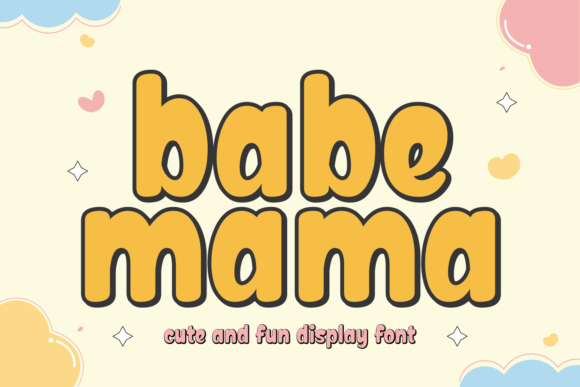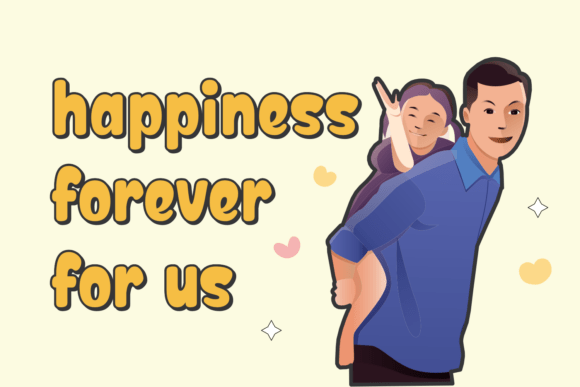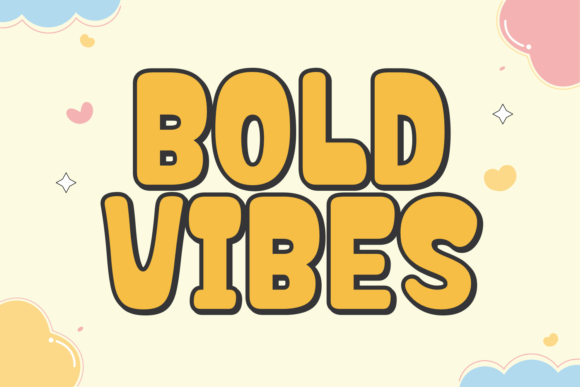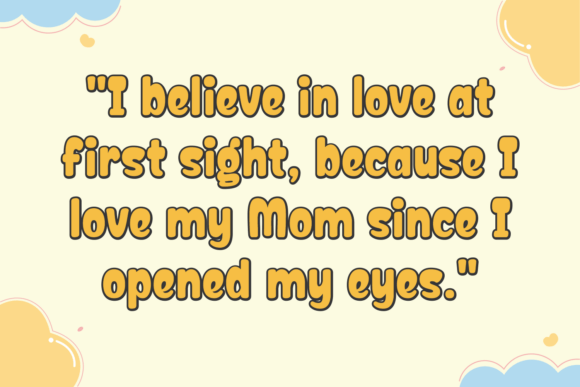
Babe Mama Font: A Cute Display Font for Playful & Modern Designs
About the Babe Mama Font
Experience the unique personality of Babe Mama Font, a font designed for impact. Introducing Babe Mama, set that beautifully meshes elegance and whimsicality. This carefully crafted typography features an array of styles, from the modern to the vintage, naturally bridging the classic aesthetics of the 70s, 80s and 90s with a contemporary vibe. Babe Mama blossoms with handwritten fonts that are personable yet elegant, perfect for projects that require a human touch.
Babe Mama shines in headlines, logos, and short-form text for branding projects aiming for a retro-yet-modern feel. Its whimsical charm is ideal for packaging design, particularly for products targeting a younger, fashion-conscious demographic. However, avoid using it for body text or lengthy paragraphs; its decorative nature reduces readability in extended use.
Consider pairing Babe Mama with a clean sans-serif like Montserrat for a balanced contrast, or a geometric sans-serif like Futura for a more modern, streamlined look. A classic serif like Garamond can add sophistication and provide a grounded counterpoint to its playful energy.
The font’s overall personality is best described as playfully elegant; it possesses a vintage charm but retains a contemporary edge, making it perfect for brands seeking a unique, approachable yet sophisticated aesthetic.
Babe Mama Font Usage Examples
Babe Mama Font Example